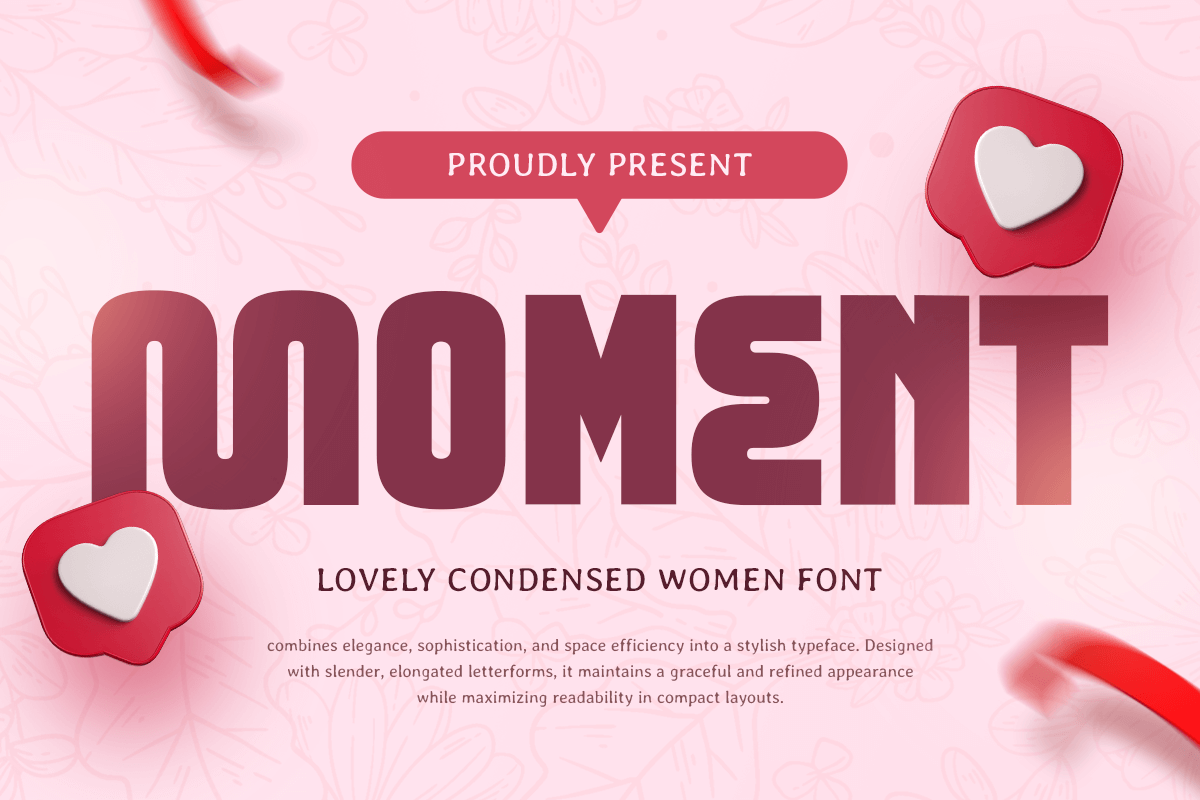
Moment
-Lovely Condensed Women Font
Moment - Lovely Condensed Women Font
Moment font is a lovely condensed serif font designed to celebrate femininity, elegance, and sophistication. With its slim, stylish letterforms and refined curves, this font brings a delicate yet confident aesthetic to any design, making it perfect for fashion brands, beauty products, wedding invitations, lifestyle blogs, and high-end editorial layouts.
Its narrow proportions enhance readability while adding a graceful and contemporary touch to logos, social media graphics, luxury packaging, and magazine titles. Moment font blends modern chic with timeless elegance, making it the ideal choice for designers who want to create a sophisticated and feminine look.
Whether you're crafting a romantic branding concept, an elegant typography layout, or a stylish digital project, Moment font is the perfect font for capturing beauty and confidence.
Moment font - Lovely Condensed Women Font Features:
• Elegant and feminine condensed serif design
• Unique Character with 4 Font Styles Inside
• Perfect for fashion, beauty, and lifestyle branding
• Punctuation, numbers, and symbols included
• All Uppercase letters
• OpenType features for enhanced typography
Embrace the beauty of elegance and femininity with Moment font—the perfect condensed serif font for chic and stylish designs.